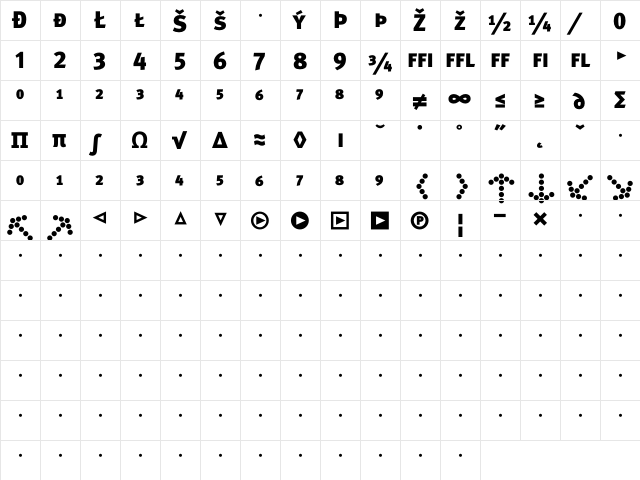
Meta Black Caps Exp
Design Context for Meta Typeface
Meta takes a measured approach to typography — its balanced proportions and neutral character make it a reliable workhorse for both digital and print work.
Pro Tip: Pair Meta with a font of contrasting weight or personality to build a more expressive typographic hierarchy.